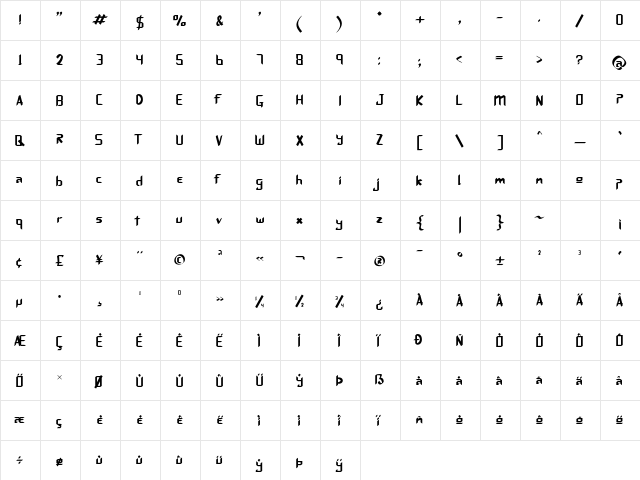
Joosepi Regular
| Designer | Sungi Creative |
Design Context for Joosepi Typeface
Joosepi is a composed and adaptable typeface that performs quietly and consistently across a wide range of design contexts.